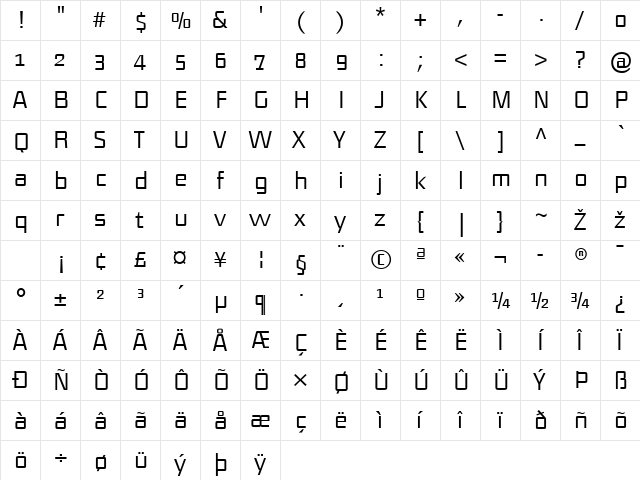
District-Light Regular Font Preview
District-Light Regular
District-Light Regular Font Details
| Foundry | FontShop International |
| Designer | Albert Boton |
Design Context for District-Light Typeface
District-Light is a composed and adaptable typeface that performs quietly and consistently across a wide range of design contexts. The delicate stroke weight brings airiness and refinement to layouts.